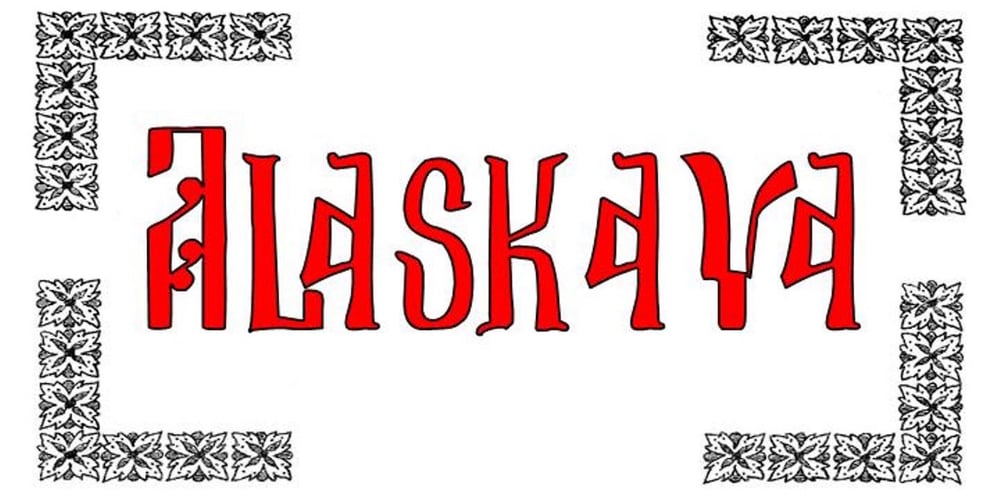
Alaskaya
Alaskaya font
Alaskaya Font Family was designed by published by Simeon out West. Alaskaya contains 4 styles and family package options. Alaskaya is another result of many fruitless years of looking for satisfactory fonts based on Old Russian Iconography suitable for use with the Latin alphabet. The origins of the Alaskaya font are the lettering found on the iconography in St. Herman Orthodox Church in Littleton, Colorado. I chose to name the font Alaskaya, in honor of Sts. Herman of Alaska and Innocent of Moscow, the enlightener of Alaska. Alaskaya currently comes with full punctuation, a complete character set for the English, Greek and Cyrillic character sets. Being a decorative font, it works best at larger point sizes.